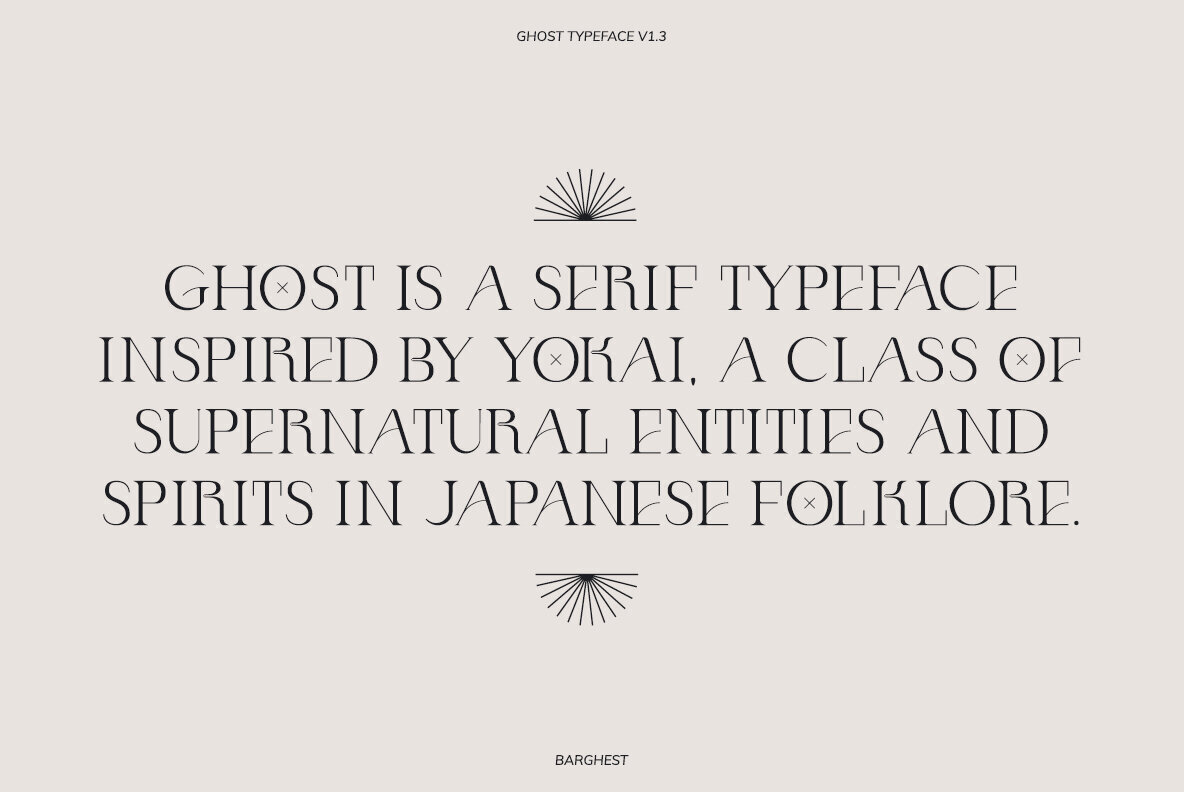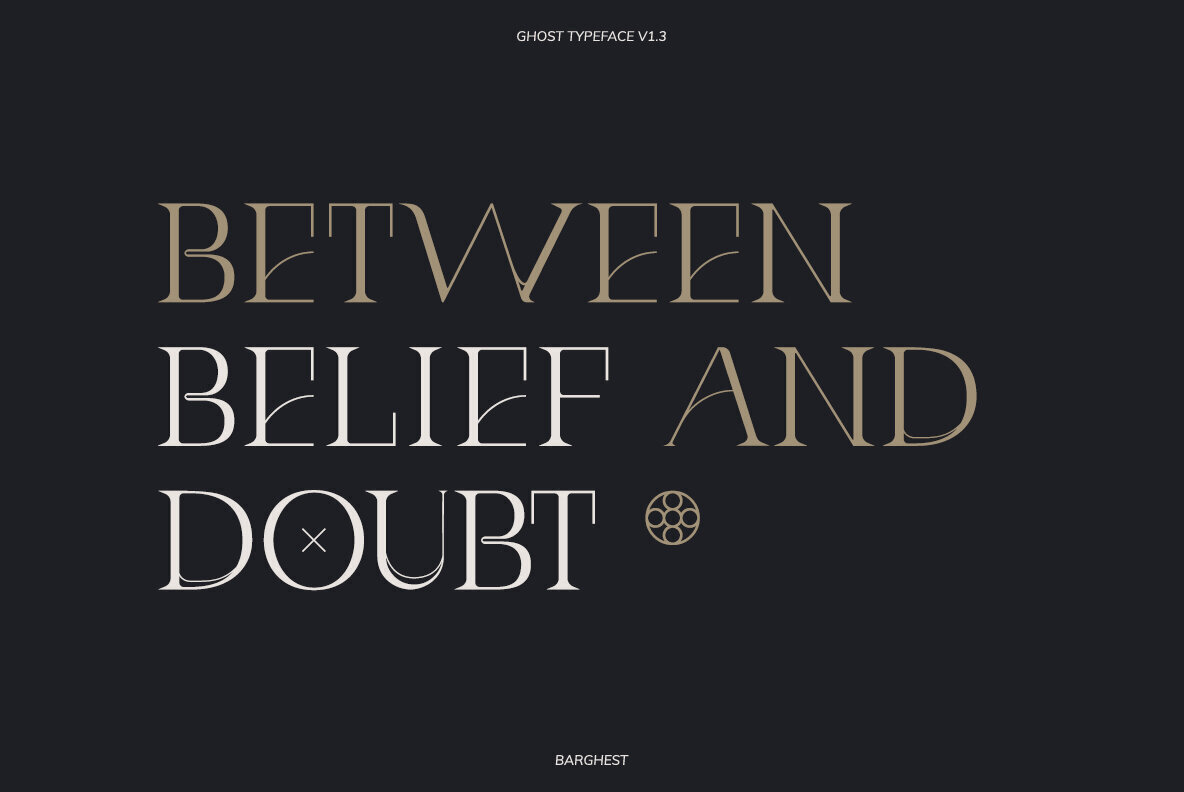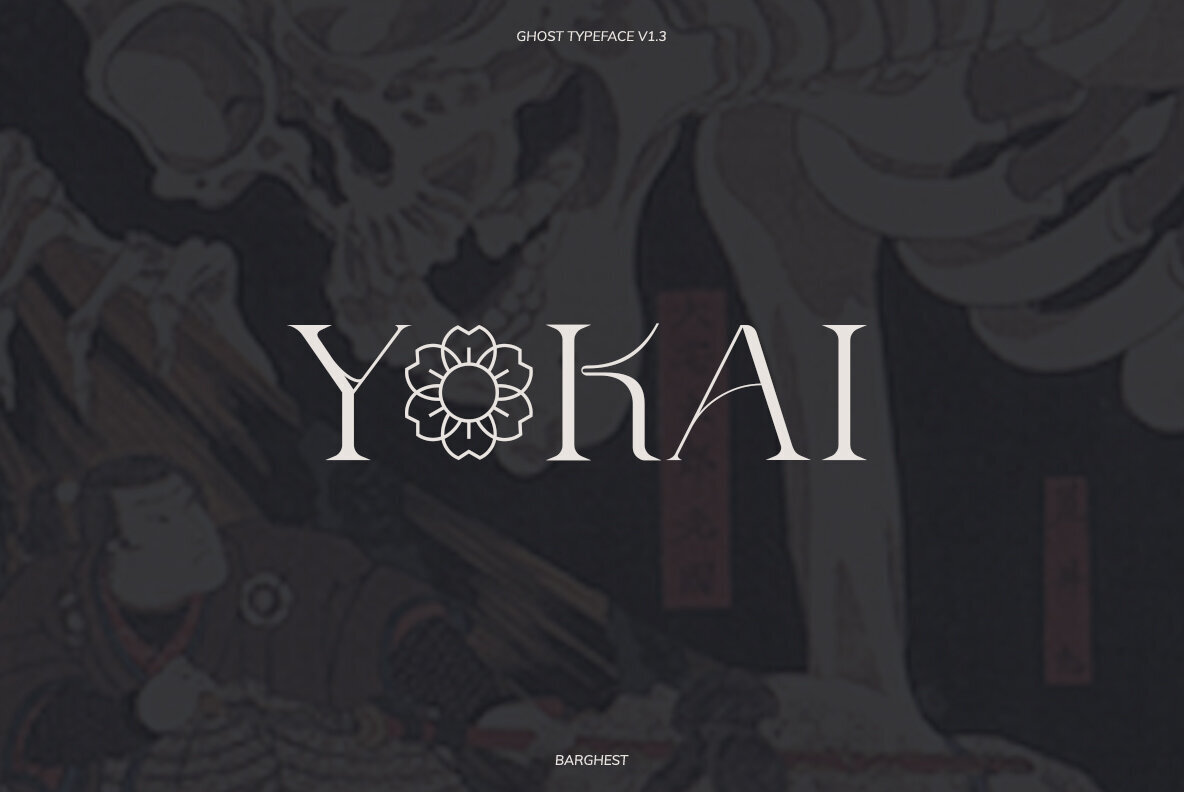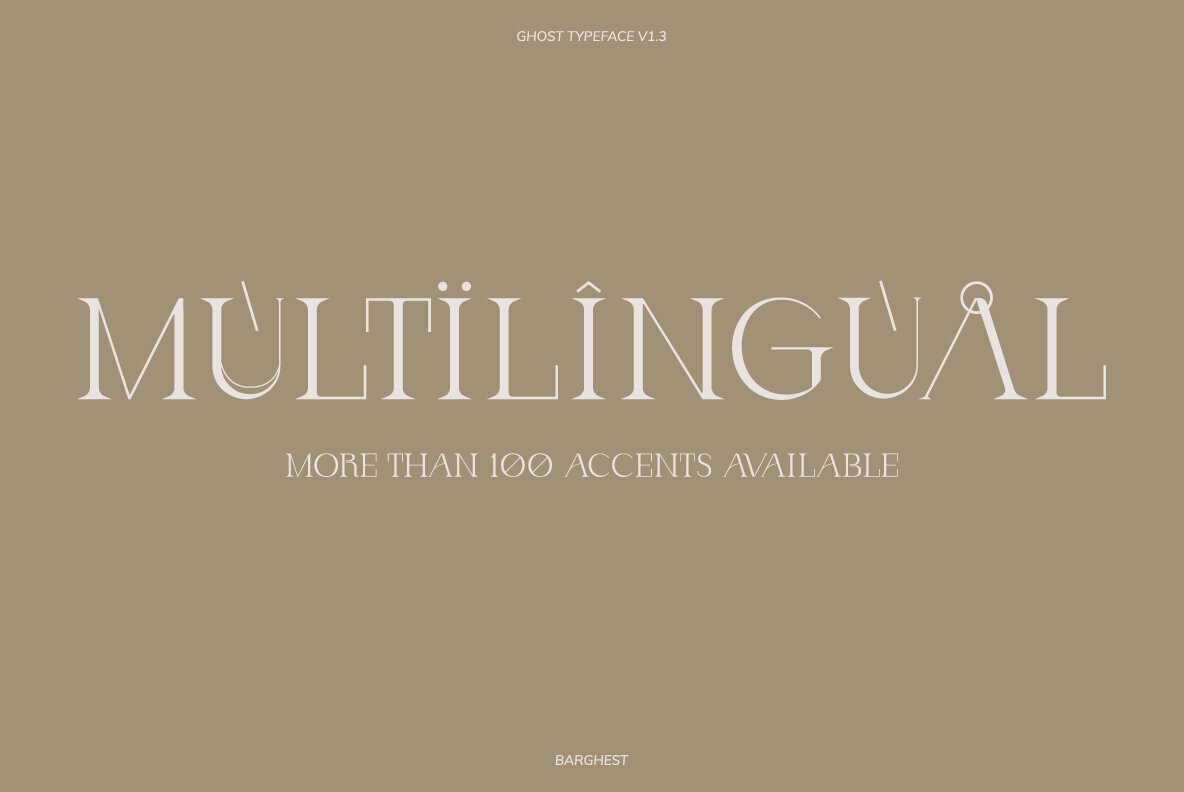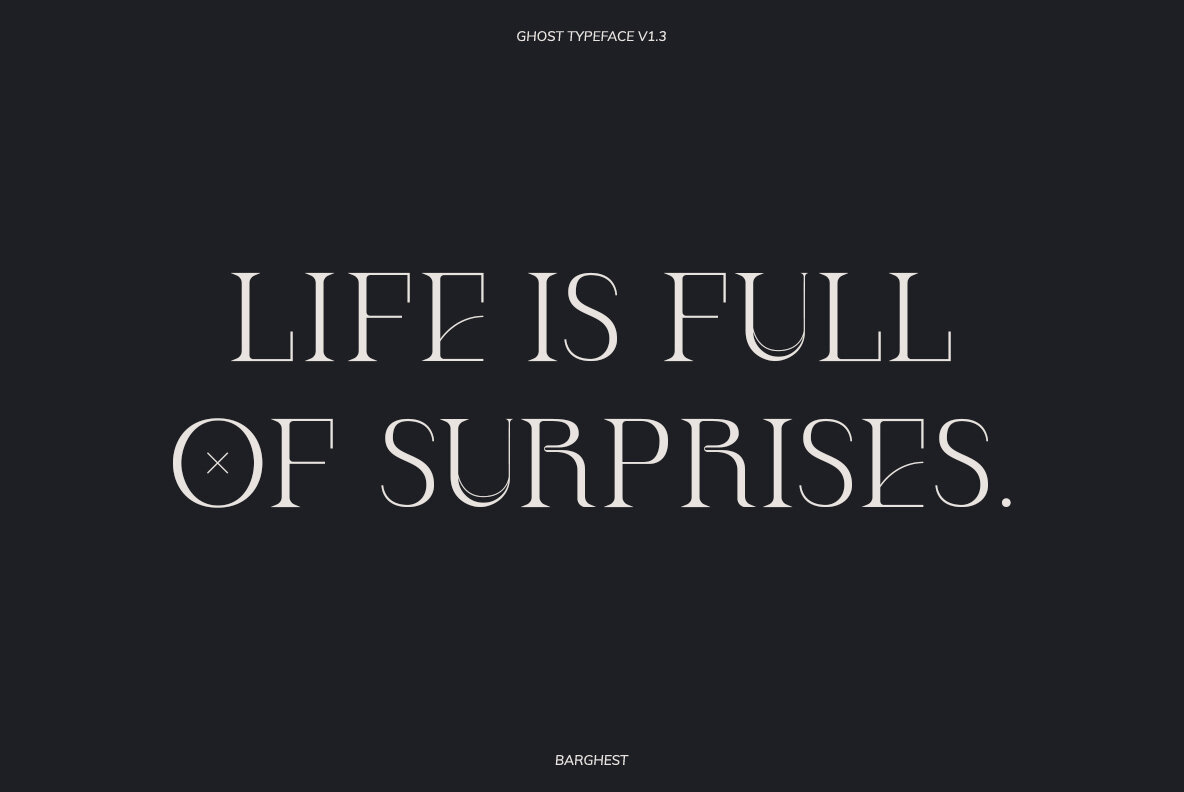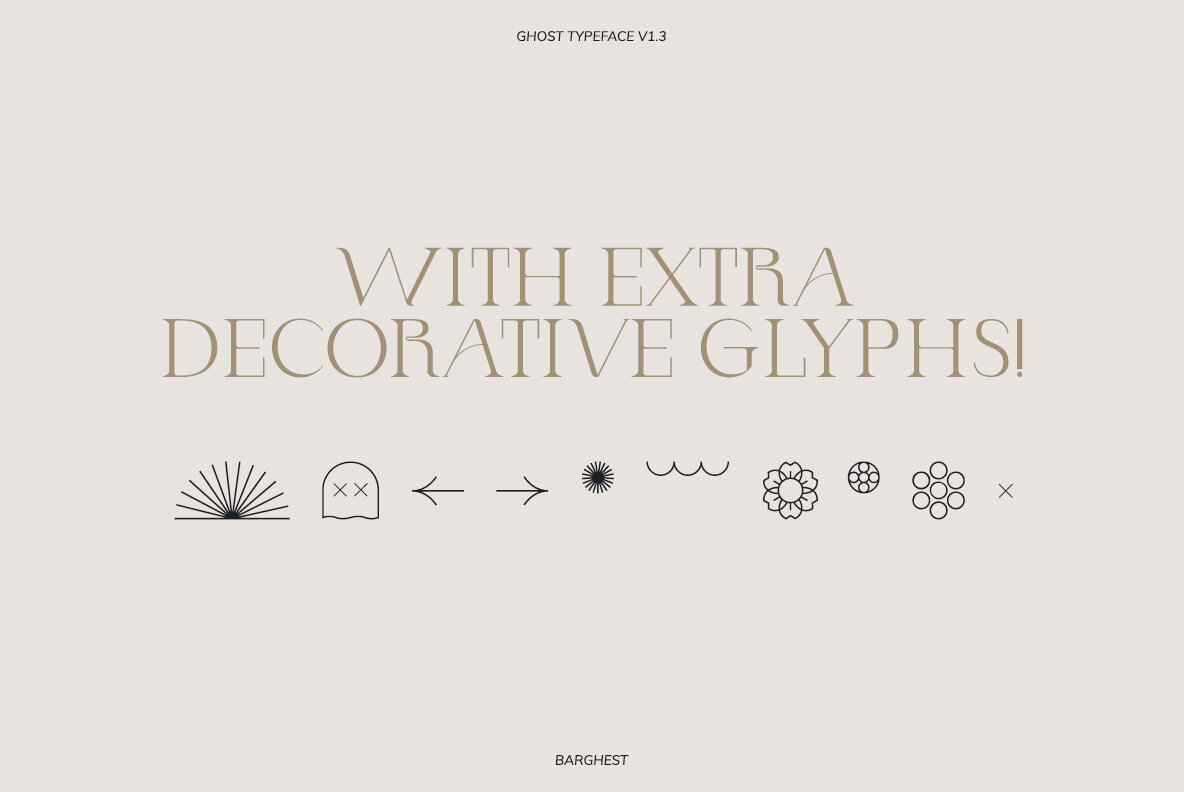
Ghost Display: A Hauntingly Unique Serif Typeface
Ghost Display is a captivating serif display typeface deeply rooted in the mystical allure of Yokai, the supernatural spirits of Japanese folklore. This elegant font brings an air of mystery and creativity to any project, infusing your design work with a unique cultural edge.
Distinct Features
• Inspired Design – Draws from rich cultural folklore for a unique aesthetic.
• Elegant Serif Style – Offers a refined, sophisticated look for your creative projects.
Ideal for adding a touch of the supernatural to your design endeavors.